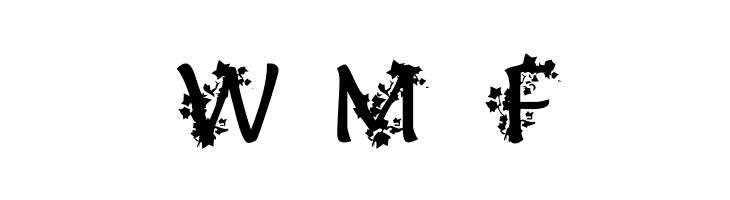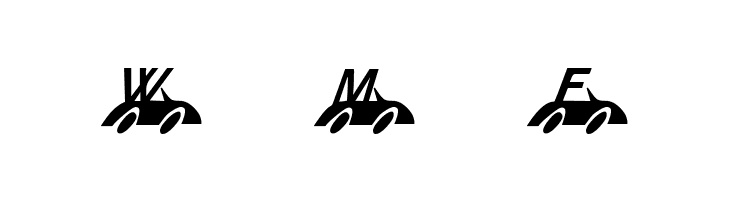
( Alan Carr )
A versatile collection of bold, geometric symbols with high contrast.
( Alan Carr )
A classic, italic serif font with medium contrast and a vintage feel.
( Alan Carr )
A geometric sans-serif font with bold, clean lines and a modern look.
( Alan Carr )
A sleek, modern font with clean lines and geometric structure.
( Casey Burns - caseyburns.com )
A bold, playful font with rounded, hand-drawn characters.
( Dani Foster Herring - dani3d.com/ )
A decorative font with ivy-like patterns entwined around each letter.
( Dingbat Crazy - dingbatcrazy.fateback.com/ )
A diverse collection of uniquely styled arrows for versatile design use.
( Dingbat Crazy - dingbatcrazy.fateback.com/ )
A diverse set of decorative and plain frame glyphs.
( Kat's Fun Fonts - www.katsfunfonts.com/ )
A playful font with characters inside bubbling cauldrons, perfect for magical themes.
( Kat's Fun Fonts - www.katsfunfonts.com/ )
A playful, car-themed decorative font with bold, italicized letters.
( Kat's Fun Fonts - www.katsfunfonts.com/ )
A playful, decorative font with puppy illustrations in bold, rounded letters.
( Kat's Fun Fonts - www.katsfunfonts.com/ )
A playful decorative font with characters inside pots of gold.
( Kat's Fun Fonts - www.katsfunfonts.com/ )
A playful, decorative font with characters enclosed in textured squares, ideal for creative projects.
( Kat's Fun Fonts - www.katsfunfonts.com/ )
A bold serif font with twinkling star embellishments, perfect for decorative use.
( Kat's Fun Fonts - www.katsfunfonts.com/ )
A decorative font with bold letters encased in intricate circular frames.
( Katz Fontz - katzfonts.50megs.com/kg.html )
A playful decorative font with bear illustrations integrated into each letter.
( Katz Fontz - katzfonts.50megs.com/kg.html )
A festive font with uppercase letters in snowmen and lowercase in snowflakes.
( Solar Sister - web.archive.org/web/20050308194059/www.hellostranger.com/solarsister/ )
A whimsical, vintage-style font with bold serifs and playful character shapes.
A playful, decorative font with bold strokes and dot embellishments.
A rugged, distressed font with a hand-drawn, edgy style.
A bold, expressive handwritten font with dynamic strokes.
A futuristic, tubular font with geometric and playful elements.
A modern, elegant font with tall, slender uppercase characters and a geometric structure.
An angular, decorative font with Gothic influences and intricate detailing.
( Fonts by Dennis van Schajik - www.zopp.nl )
A bold, handwritten font with an energetic and casual style.
( Fonts by dartcanada.tripod.com - Darren Rigby )
A modern, geometric font with a sleek, condensed design.
A playful, handwritten font with a whimsical and friendly appearance.
A playful, bold handwritten font with rounded strokes and a dynamic slant.
A playful, handwritten font with a whimsical and friendly style.
A playful, hand-drawn font with irregular strokes and a whimsical style.
A playful, bold, and hand-drawn style font with rounded letterforms.
A whimsical and playful font with decorative swirls and artistic flair.